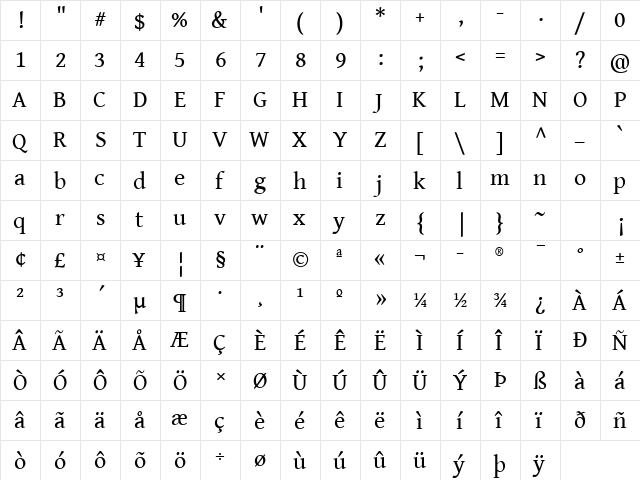
Gentium Book Basic Regular
| Foundry | SIL International |
| Designer | J. Victor Gaultney and Annie Olsen |
Design Context for Gentium Book Basic Typeface
Gentium Book Basic takes a measured approach to typography — its balanced proportions and neutral character make it a reliable workhorse for both digital and print work.